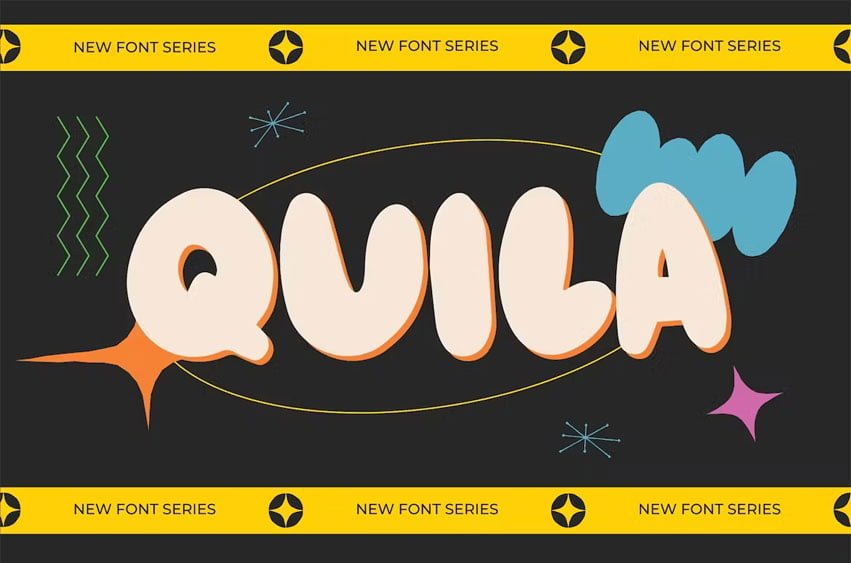
The typeface offers numerous combination possibilities between the basic glyph set . Quila Handdrawn is very best choice fonts for : ,quotes, Posters, Logos, Print Ads, Digital Ads, Promotion Product, video bumper, etcsad